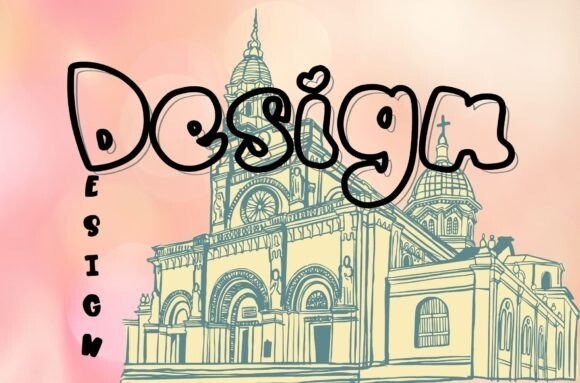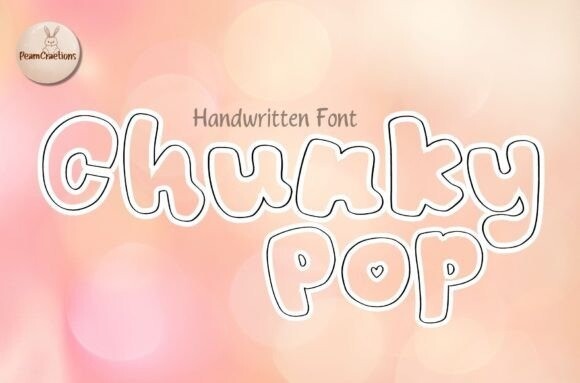
Chunky Pop Line Font
Chunky Pop line is handwritten font. You can use for : logos, branding, wedding invitations, business cards, greeting cards, posters, magazines, social media, planner prints and websites. It is especially useful for children’s designs, t-shirts, mugs, posters, and more. Add this font to your favorite creative ideas and notice how it makes them come alive.